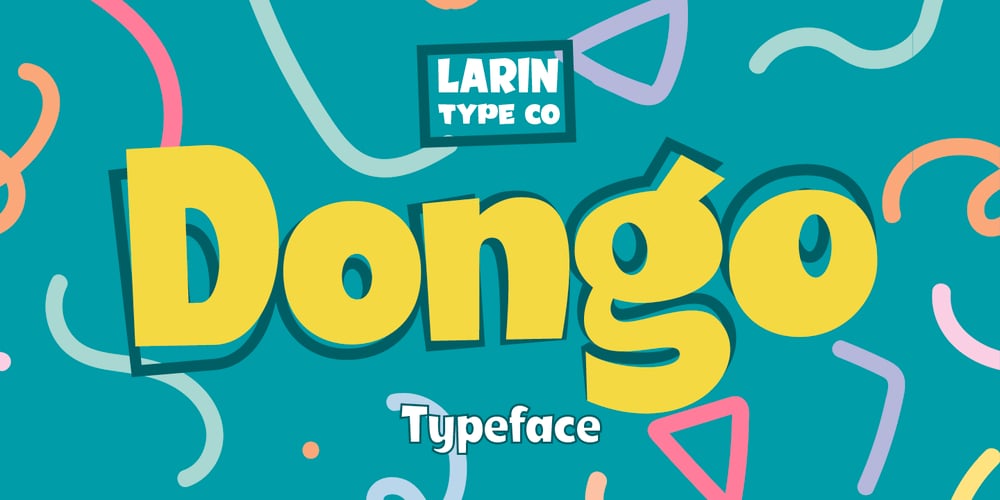
Dongo Font Family was designed by Pavel Larin and published by Larin Type Co. Dongo contains 2 styles and family package options. Dongo This is a fun and playful font, which will perfectly fit into children’s projects or funny modern designs and logos, with it you can make playful designs by changing styles and combining them with each other. This font includes two styles – regular and outline.Font includes: Full alphabet with Uppercase and Lowercase A-z Numbers, fractions Punctuation and symbols Alternates for lowercase